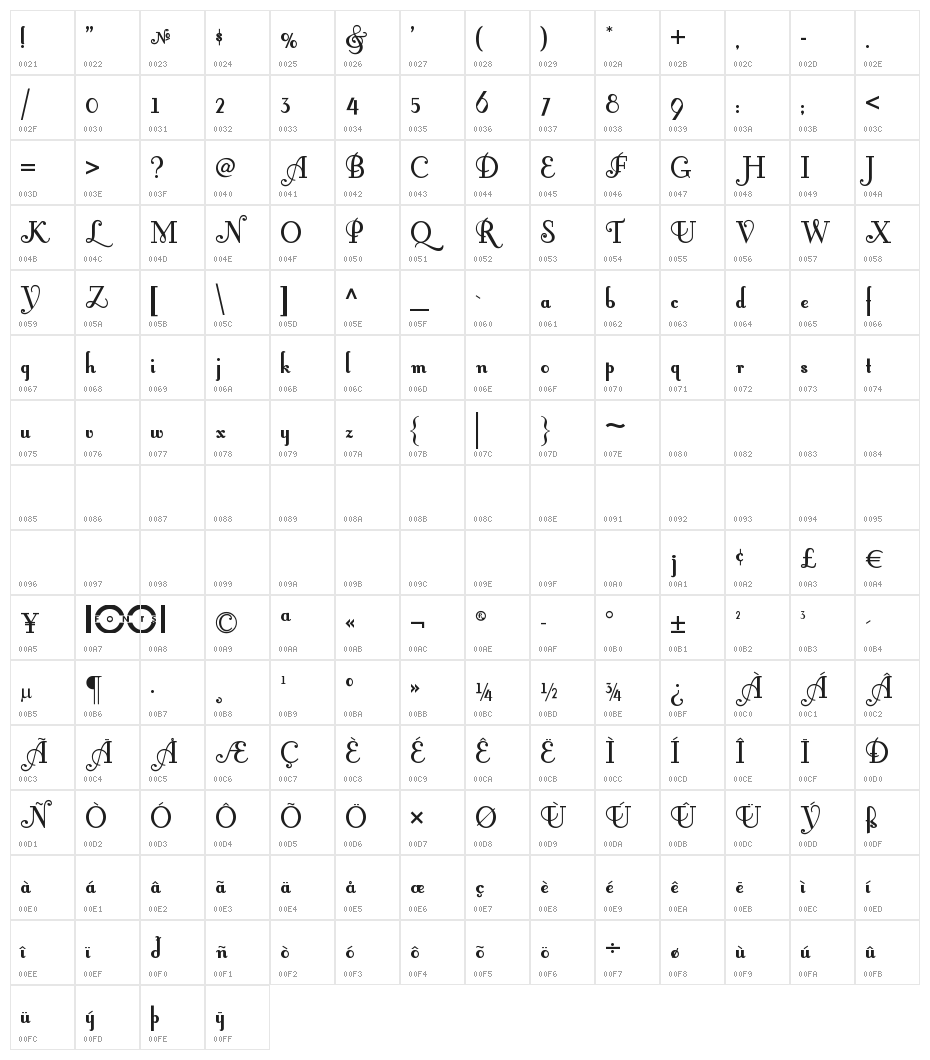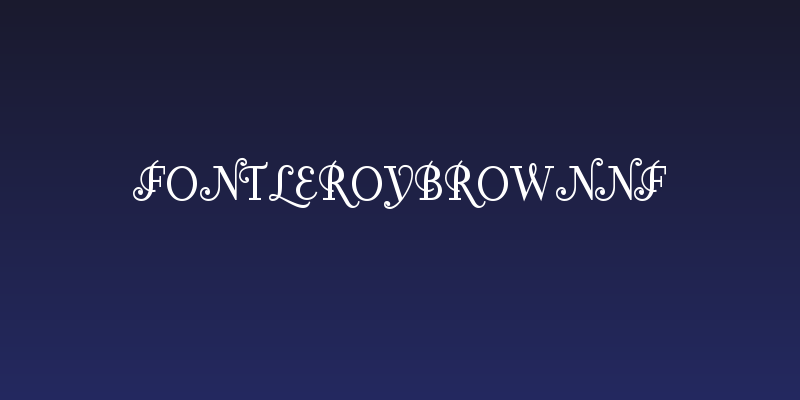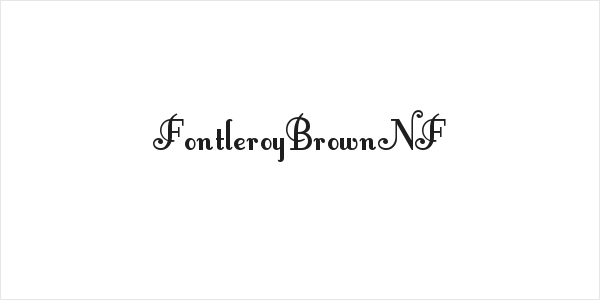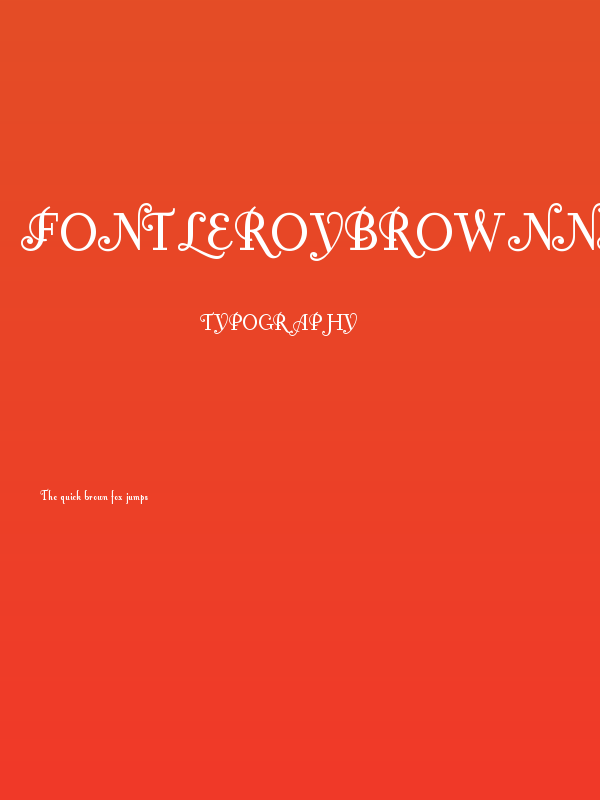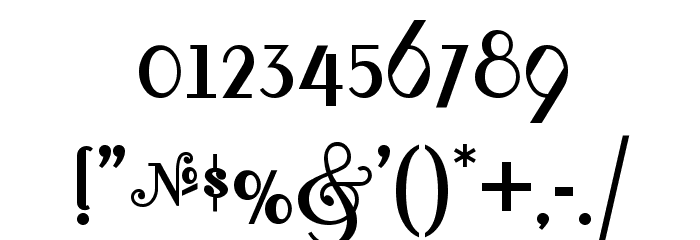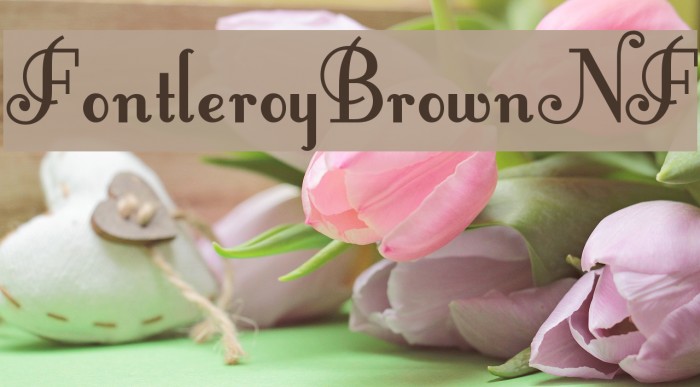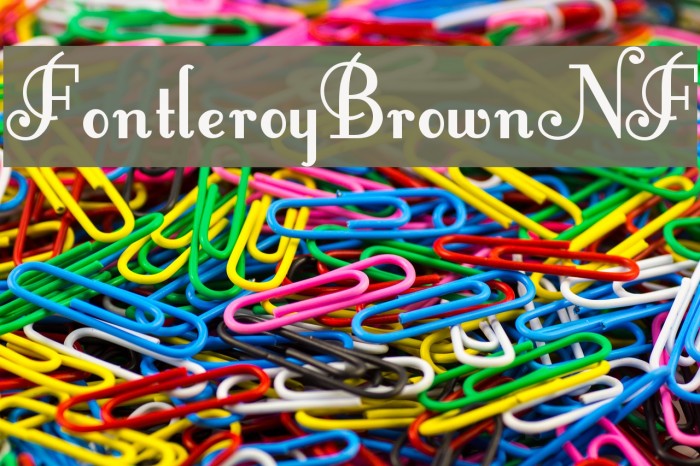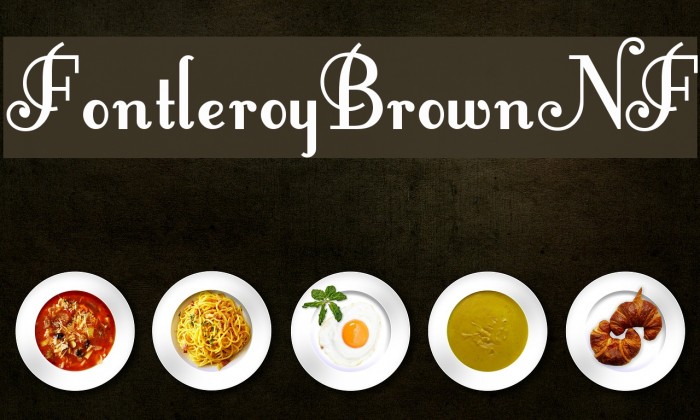
FontleroyBrownNF Font
FontleroyBrownNF Description
This font features an elegant and decorative style with a classic touch. The uppercase letters are adorned with intricate swirls and flourishes, giving it a sophisticated and ornate appearance. The lowercase letters maintain a more straightforward yet stylish form, providing a nice contrast to the elaborate uppercase. The numerals are clear and bold, ensuring readability while maintaining the overall decorative theme. Special characters are designed with similar embellishments, adding to the font's cohesive aesthetic. This font is perfect for projects that require a touch of elegance and sophistication.